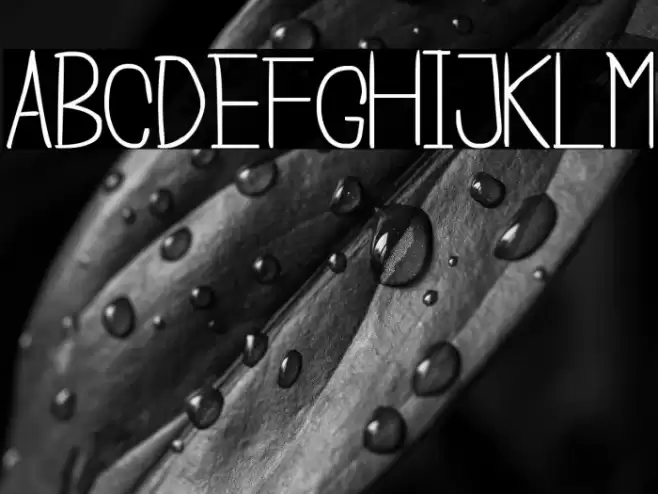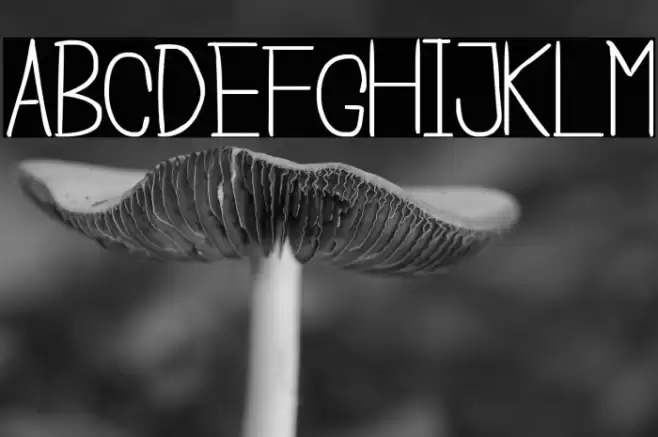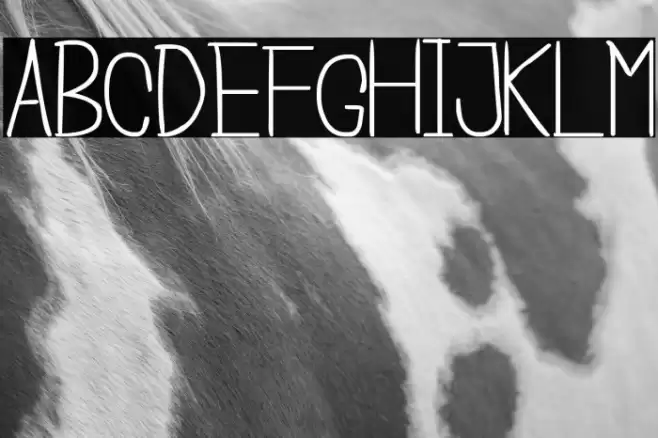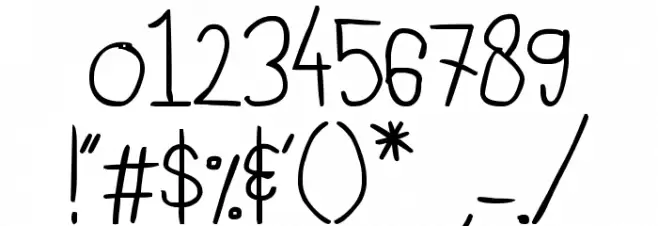
Cisca Note Font
Cisca Note Description
This font features a playful and casual handwritten style, characterized by its irregular and slightly uneven strokes that give it a personal touch. The uppercase letters are tall and narrow, while the lowercase letters maintain a consistent height, creating a harmonious balance. The numbers and special characters follow the same informal aesthetic, making the font suitable for creative and informal applications. The overall appearance is approachable and friendly, with a touch of whimsy that can add personality to any project.
A playful, handwritten font with a casual and friendly style from Uncategorized fonts.
- Font: Cisca Note
- Proposed Projects: Ideal for greeting cards, children's books, casual invitations, and social media graphics.
- Overall Style: Casual, Playful
- Use Case: Headlines, Informal text, Creative projects